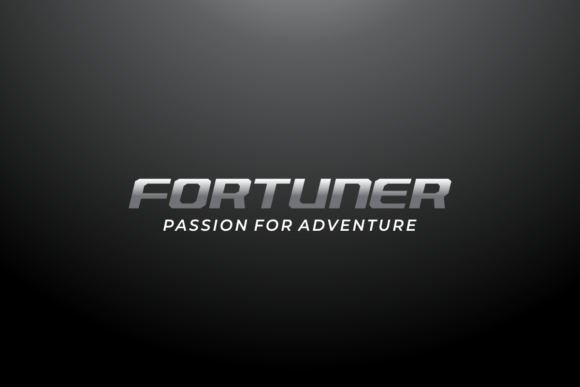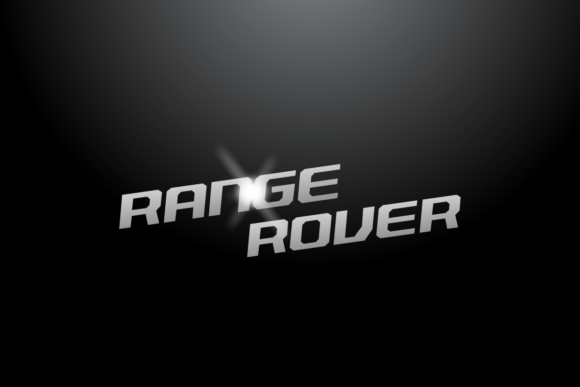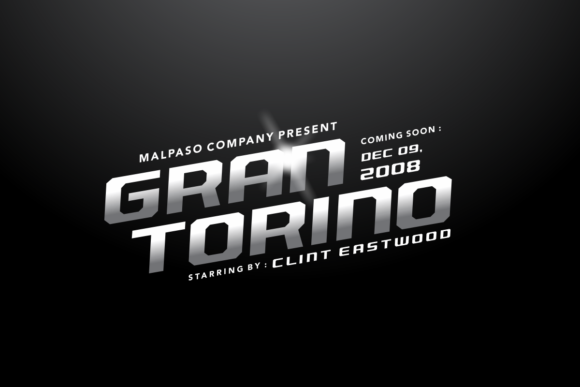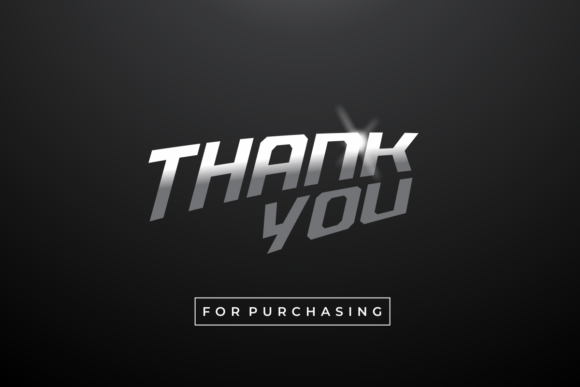
Introducing Foreigner Font: The Perfect Blend of Elegance and Sportiness
Are you tired of using the same old fonts in your design projects? Look no further than Foreigner Font, a bold, elegant, and sporty font that’s inspired by the design of retro car emblems. With its minimal and elegant feel, yet distinct sporty touch, Foreigner Font is the perfect addition to any design project that requires a flashy, cool vibe.
The Inspiration Behind Foreigner Font
Foreigner Font draws its inspiration from the classic designs of retro car emblems. The font’s creator aimed to capture the essence of these emblems, which are often characterized by their bold, sleek, and sporty lines. The result is a font that’s both elegant and attention-grabbing, making it perfect for designers who want to add a touch of sophistication and style to their work.
Key Features of Foreigner Font
So, what makes Foreigner Font so special? Here are some of its key features:
- Bold and Elegant: Foreigner Font has a bold and elegant feel that’s perfect for headlines, titles, and other design elements that require a touch of sophistication.
- Sporty Touch: Despite its elegant feel, Foreigner Font also has a distinct sporty vibe that’s perfect for designs that require a flashy, cool touch.
- Minimal Design: Foreigner Font has a minimal design that’s inspired by the clean lines and simple shapes of retro car emblems.
- Versatile: Foreigner Font is versatile and can be used in a wide range of design projects, from logos and branding to posters and social media graphics.
Uses of Foreigner Font
Foreigner Font is a versatile font that can be used in a wide range of design projects. Here are some ideas to get you started:
- Logos and Branding: Use Foreigner Font to create bold and elegant logos that make a statement.
- Posters and Flyers: Add a touch of sophistication and style to your posters and flyers with Foreigner Font.
- Social Media Graphics: Use Foreigner Font to create eye-catching social media graphics that stand out from the crowd.
- Packaging Design: Add a touch of elegance and sportiness to your packaging design with Foreigner Font.
Tips for Using Foreigner Font
Here are some tips for using Foreigner Font in your design projects:
- Use it as a Headline Font: Foreigner Font is perfect for headlines and titles, so use it to grab attention and make a statement.
- Pair it with Other Fonts: Experiment with pairing Foreigner Font with other fonts to create a unique and interesting look.
- Use it in Combination with Images: Use Foreigner Font in combination with images to add a touch of elegance and sophistication to your design.
| Font Name | Foreigner Font |
| Author | Konsepta Studio |